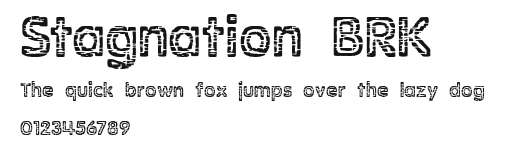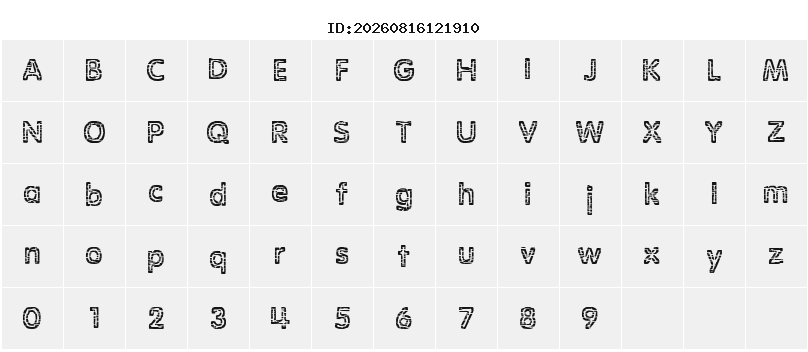
About Stagnation BRK.ttf
Stagnation BRK.ttf is a modern, elegant sans-serif font designed for ultimate readability and visual harmony. Perfect for branding, headlines, web design, and print materials.